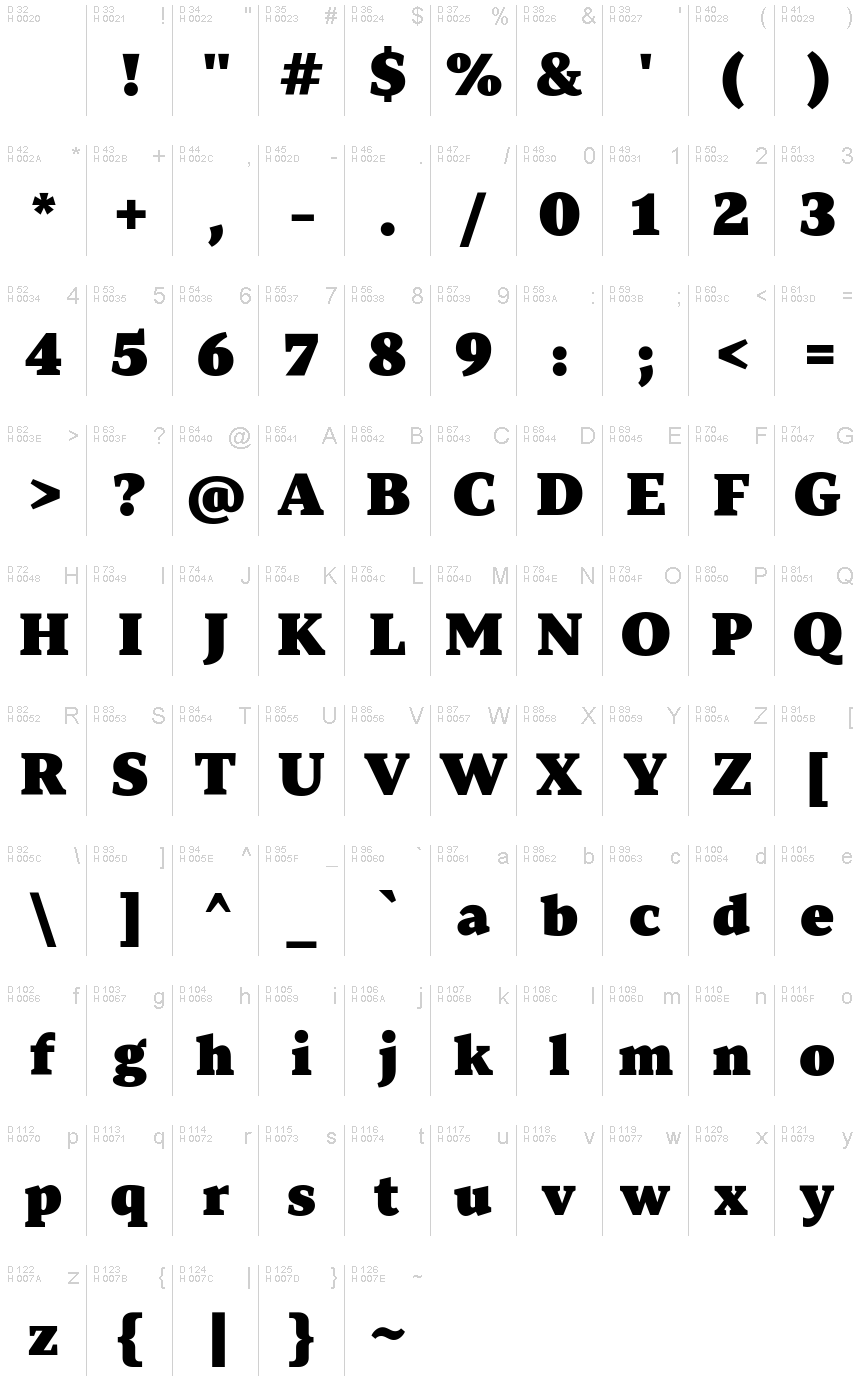
TT Norms Pro Serif Trl ExtraBlc
TT Norms Pro Serif ExtraBlc font, a bold addition to the TT Norms Pro Serif family by TypeType Foundry, captivates with its striking aesthetic. The generous proportions of this serif font exude confidence and sophistication, making it a visual statement in any design context. Its remarkable presence is complemented by graceful curves and refined serifs that lend an elegant touch, while the bold weight ensures legibility even from a distance.
This font's unique characteristics make it perfect for impactful headlines, branding projects, and editorial designs. Whether gracing the pages of a magazine or standing out on promotional materials, TT Norms Pro Serif ExtraBlc seamlessly combines modernity with timeless charm, making it an excellent choice for diverse creative ventures.